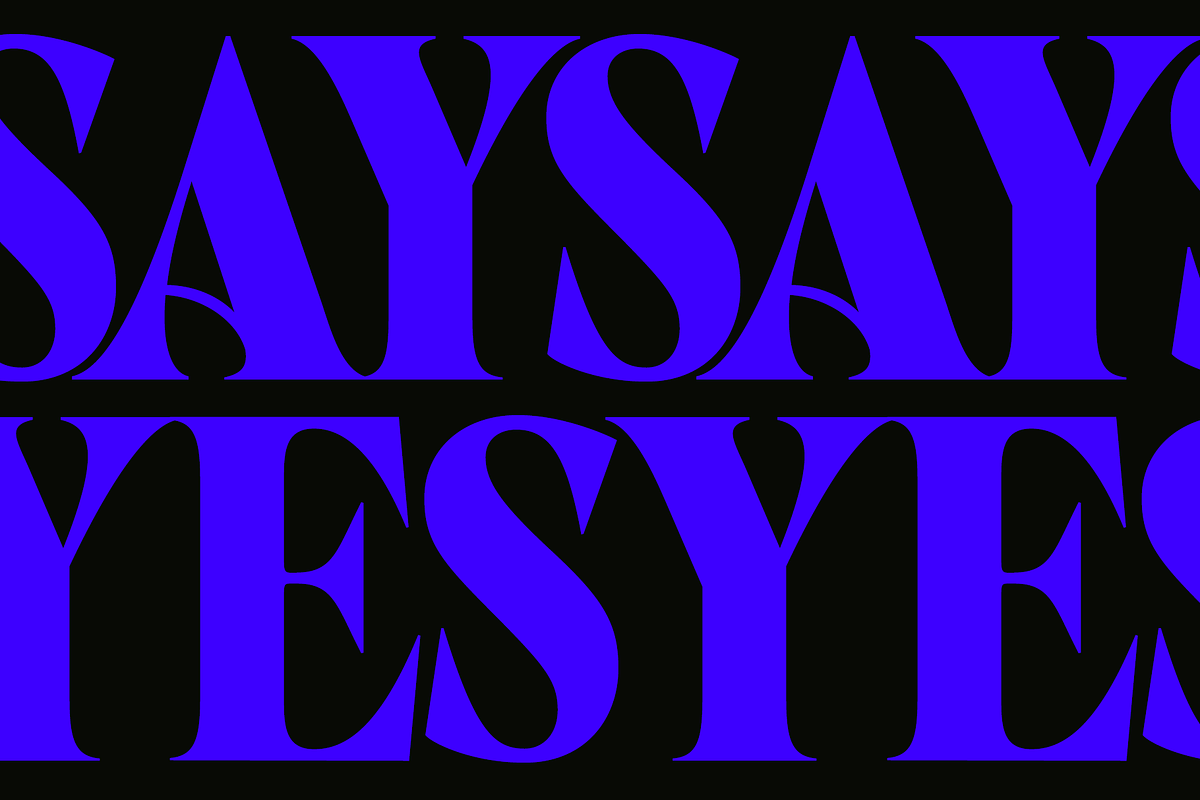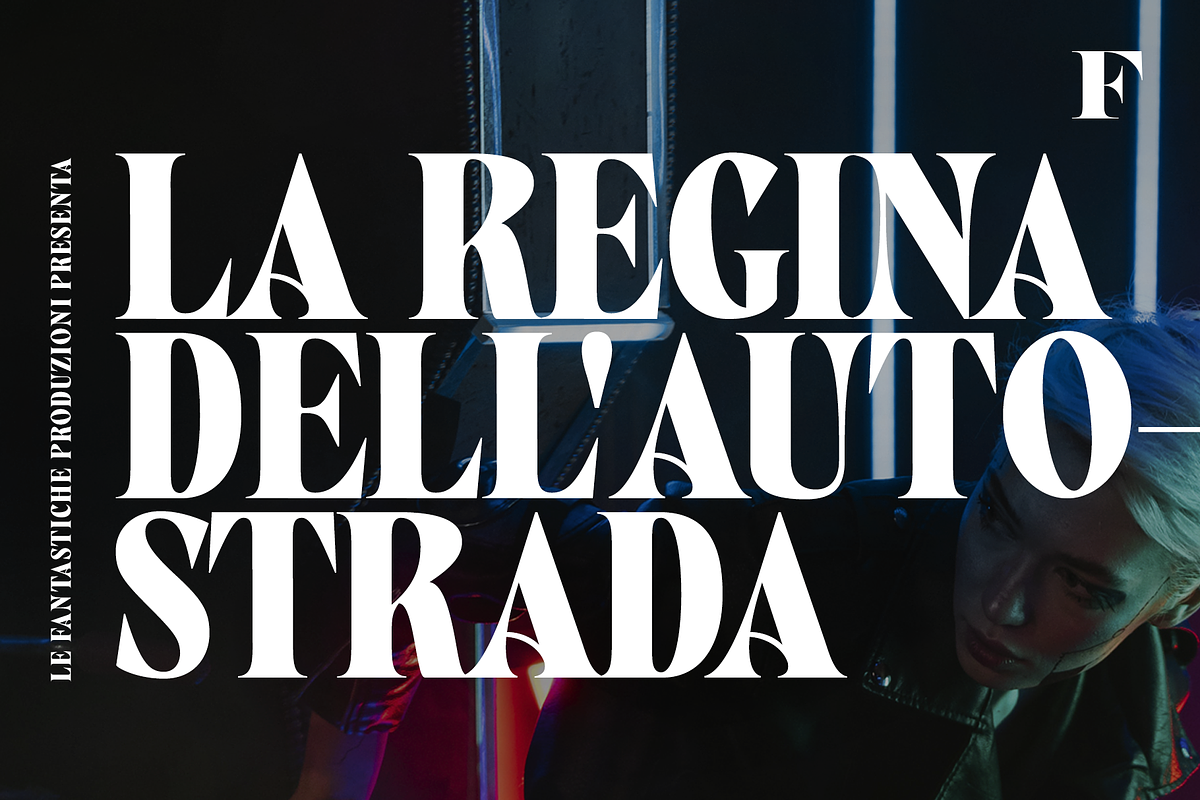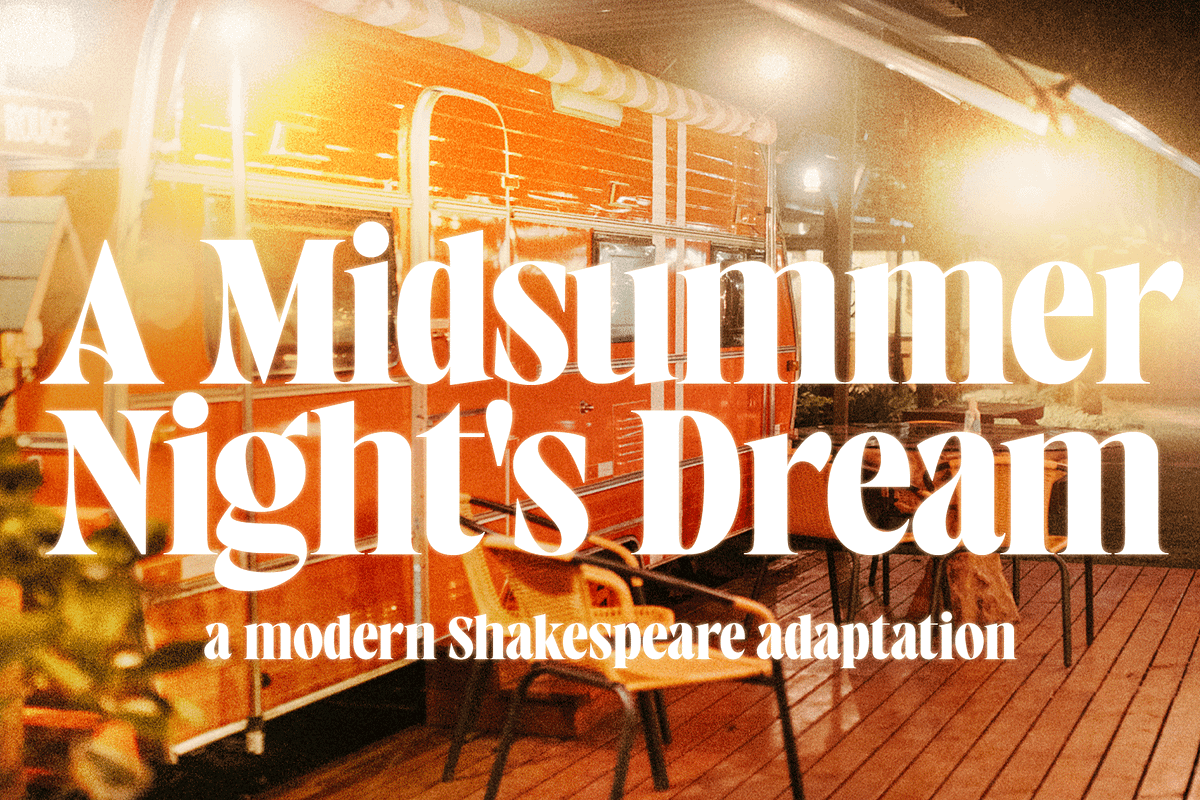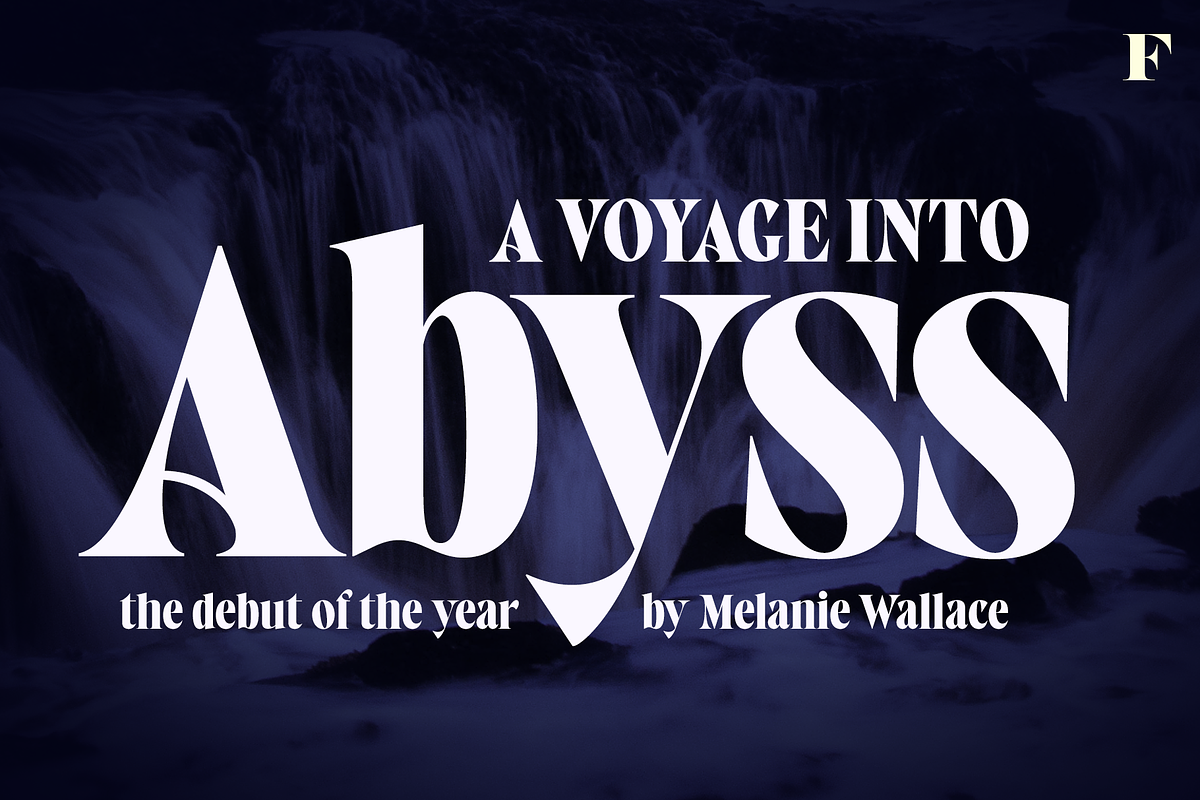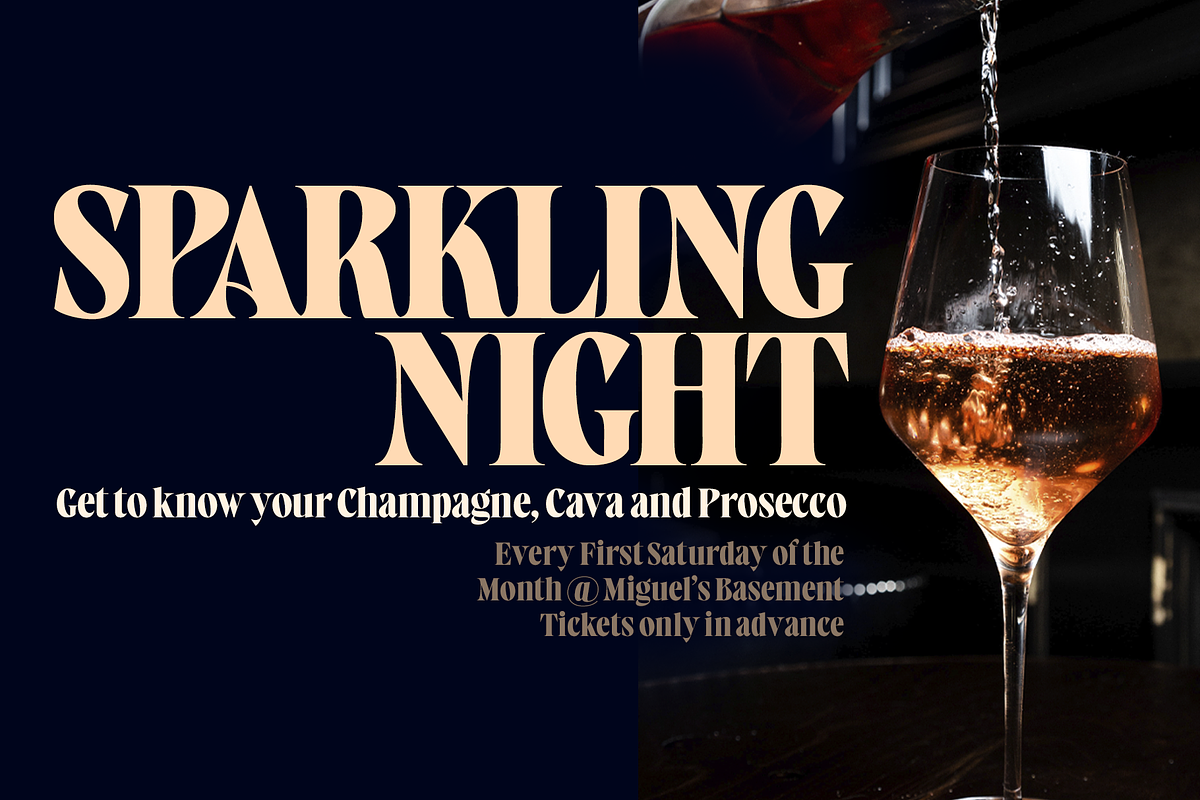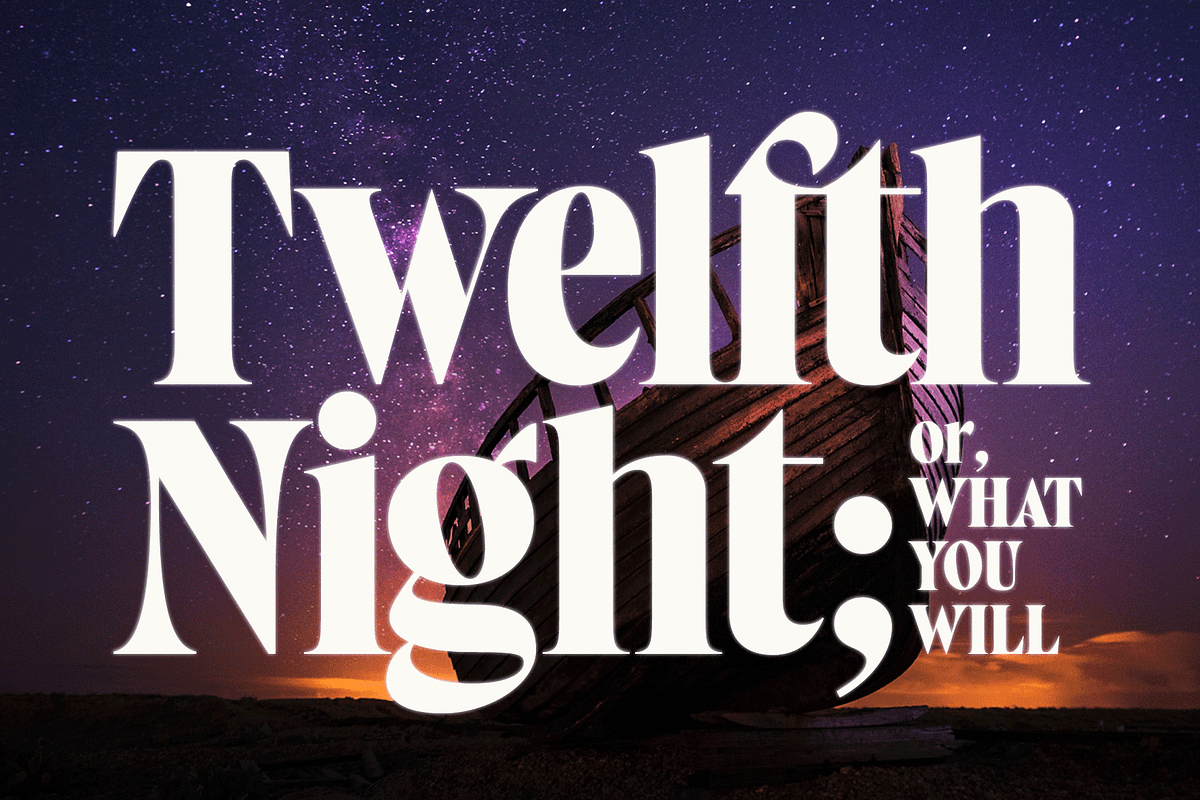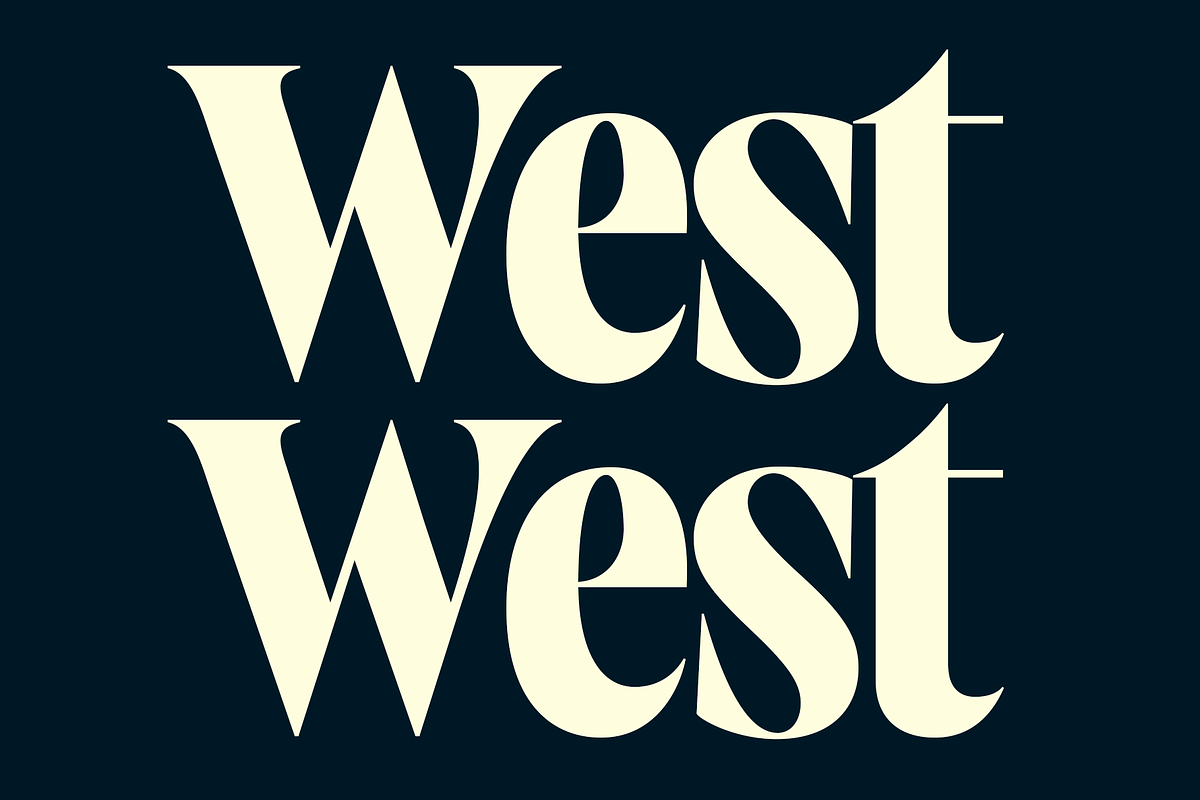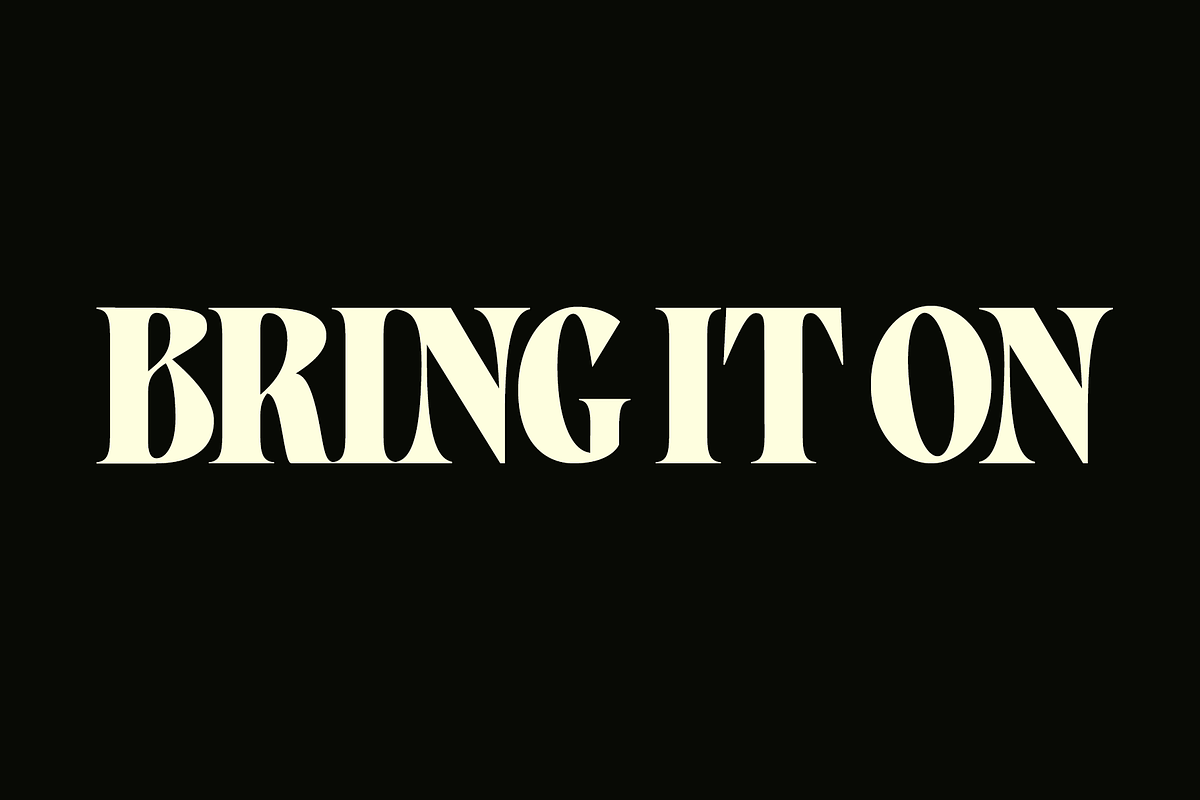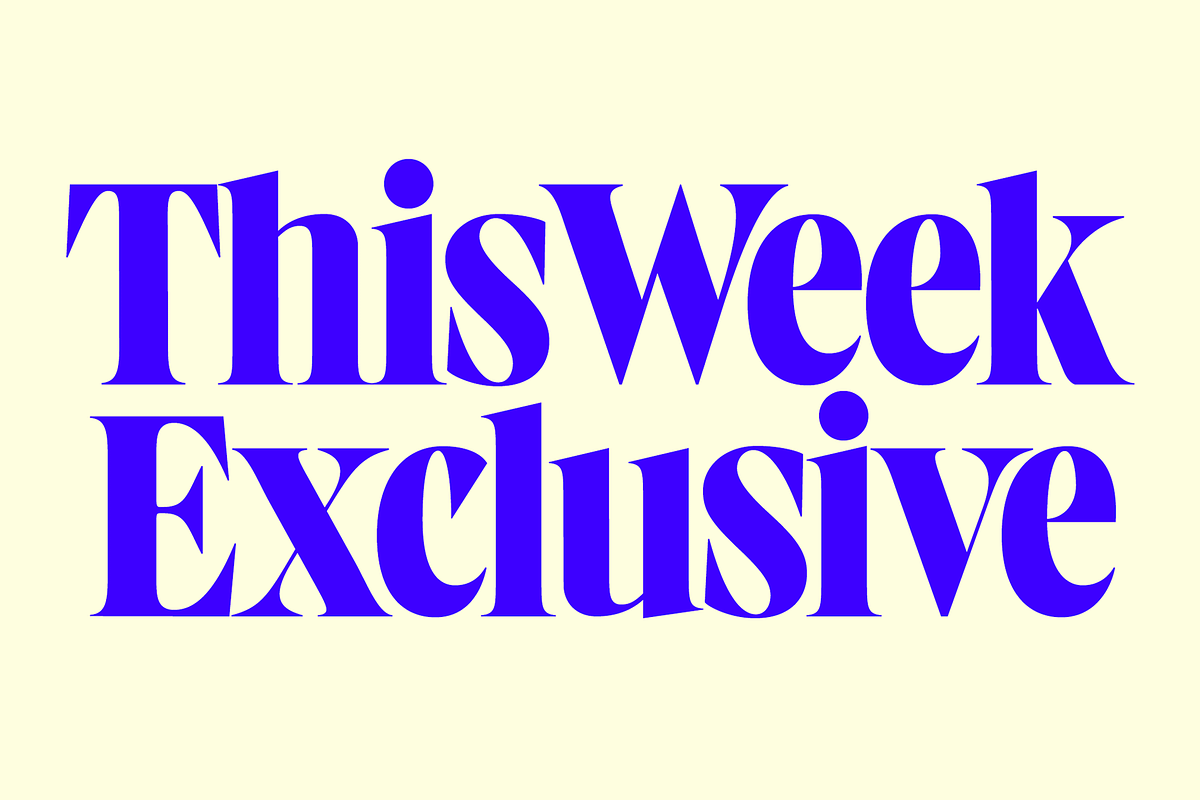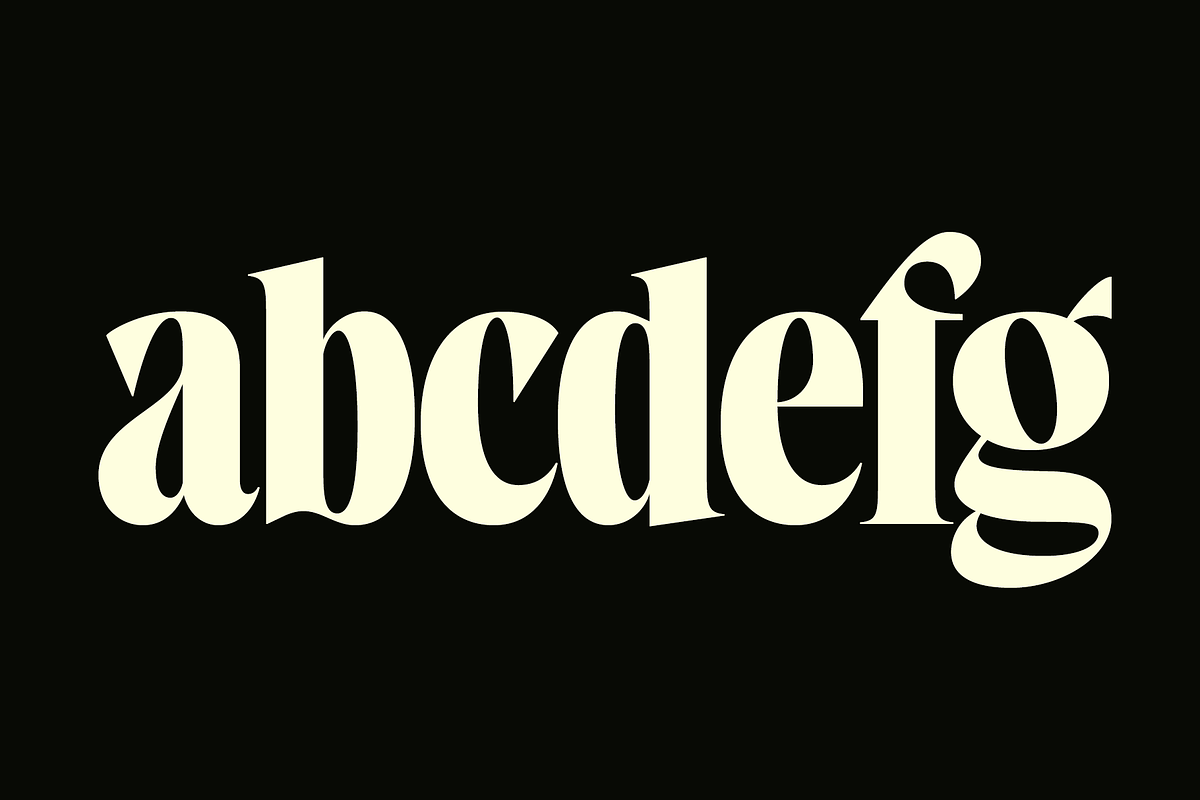
West West Condensed Serif
West West is a high-contrast condensed display serif. West West has extra large x-height making it suitable for efficient choice for distinguishable display use such as headlines, packaging, magazines, posters and advertising, among any other. In large sizes, you can also try tighter tracking for maximum impact. With certain of Art Nouveau shapes and massive contrast West West is a great choice anywhere you need a stylish and fashionable touch.